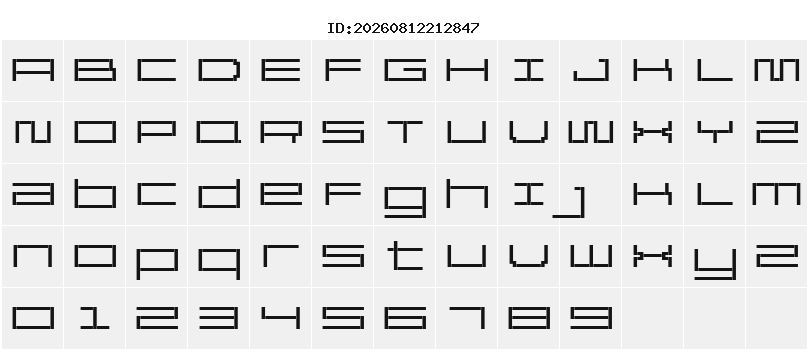
ReversionBroken Preview
• Font Name: ReversionBroken
• Font Style: SemiBold
• Font ID: ReversionBroken SemiBold
• Full Font Name: ReversionBroken SemiBold
• Designer: Michael Cina
• Manufacturer: YouWorkForThem
About ReversionBroken.ttf
ReversionBroken.ttf is a modern, elegant sans-serif font designed for ultimate readability and visual harmony. Perfect for branding, headlines, web design, and print materials.